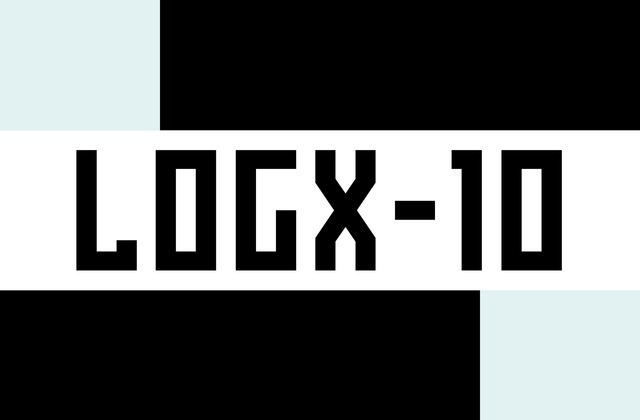
LOGX-10 Font
LOGX-10 Font is perfect for technology company branding, software interfaces, gaming applications, cyberpunk designs, sci-fi movie titles, digital displays, robotics presentations, aerospace documentation, electronic music album covers, and futuristic product packaging. This cutting-edge typeface excels in applications where innovation, precision, and technological advancement are core design requirements.
LOGX-10 Font is exciting because it embodies the essence of digital evolution and computational precision through its mathematically-inspired letterforms. Its geometric construction features sharp angles, calculated curves, and systematic proportions that create a sense of algorithmic perfection and technological sophistication. The font's monospace characteristics ensure perfect alignment in code displays while maintaining visual appeal in display applications, making it ideal for both functional and aesthetic purposes.
The LOGX-10 Font family includes Regular, Bold, Light, Mono, Condensed, and Expanded variants, each optimized for different technological applications. The family features specialized character sets including programming symbols, mathematical operators, technical notation, and digital interface elements. Advanced OpenType features provide contextual alternates and stylistic sets that enhance readability in both screen and print environments.
Professional designers choose LOGX-10 Font for its exceptional performance in digital environments and technical communications. The font's precise construction eliminates ambiguity in character recognition, making it invaluable for coding applications, technical manuals, and user interface design. Its futuristic aesthetic communicates innovation and cutting-edge technology while maintaining the clarity essential for functional applications.
The revolutionary design of LOGX-10 Font positions brands at the forefront of technological advancement and digital innovation. Its computational aesthetic appeals to tech-savvy audiences while providing the technical precision required for professional software development and digital design applications.